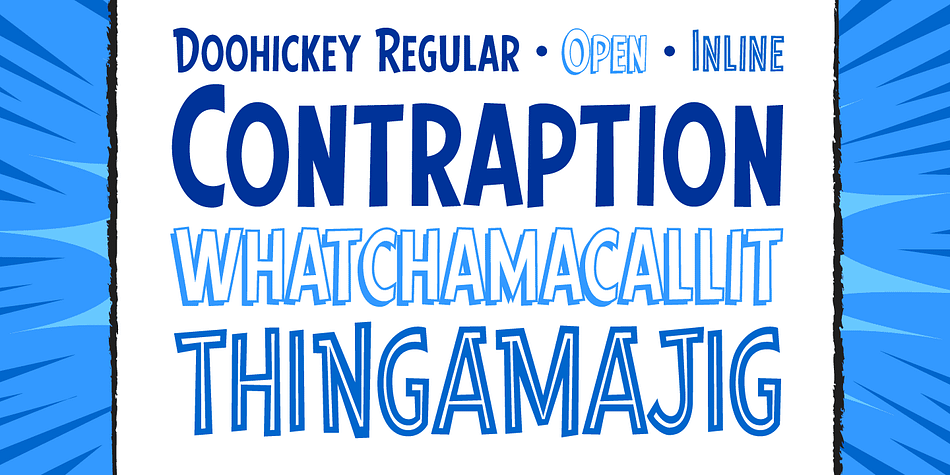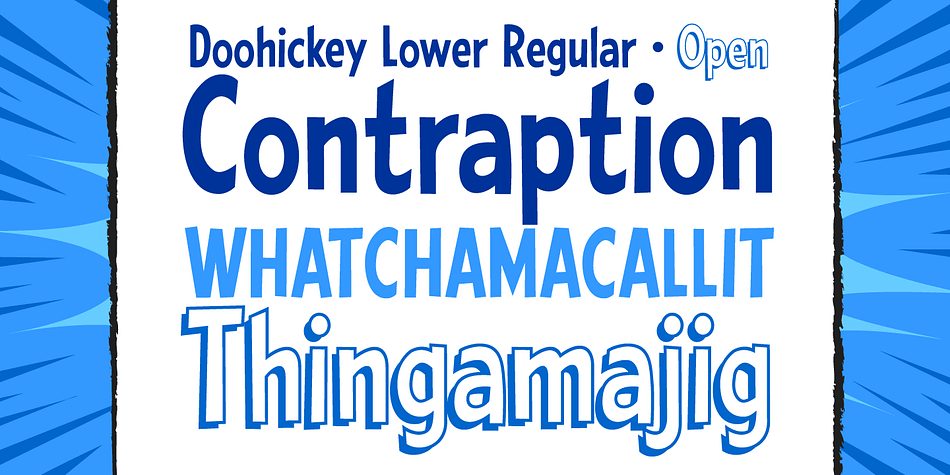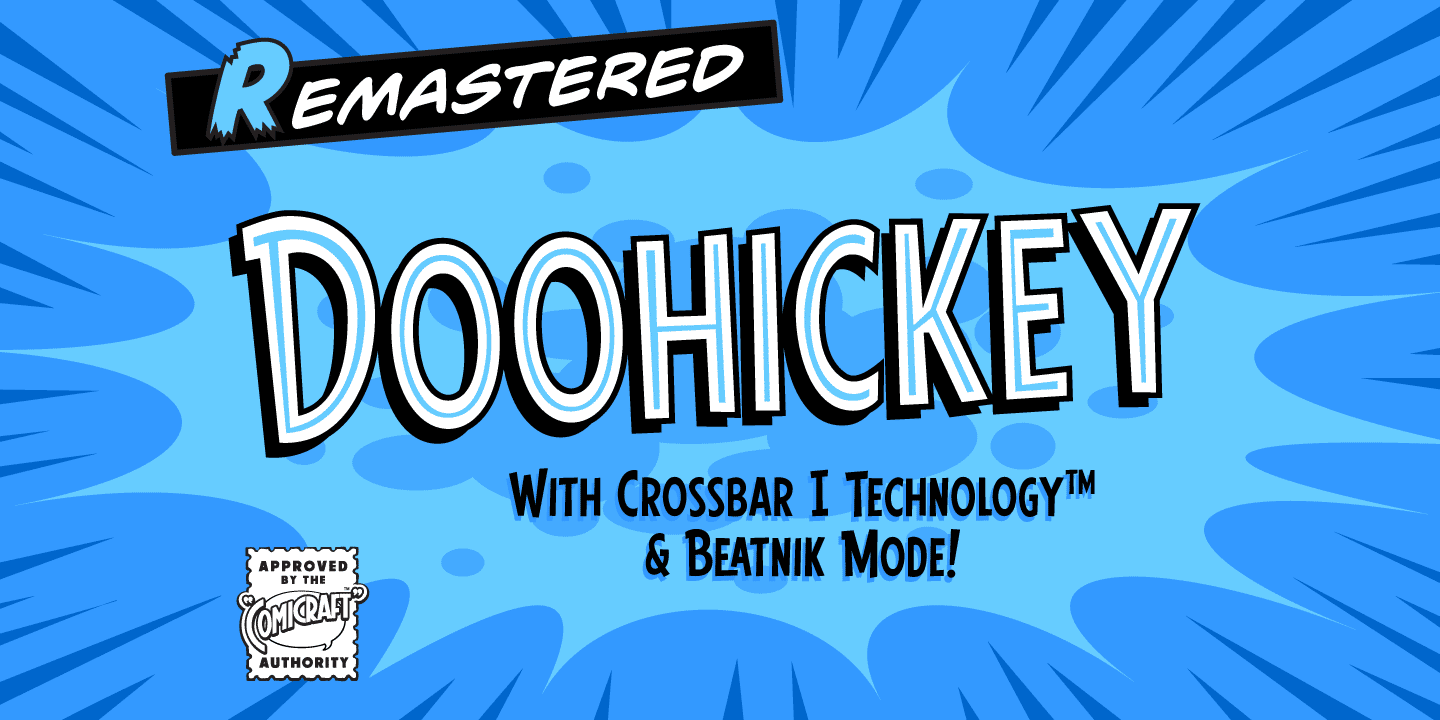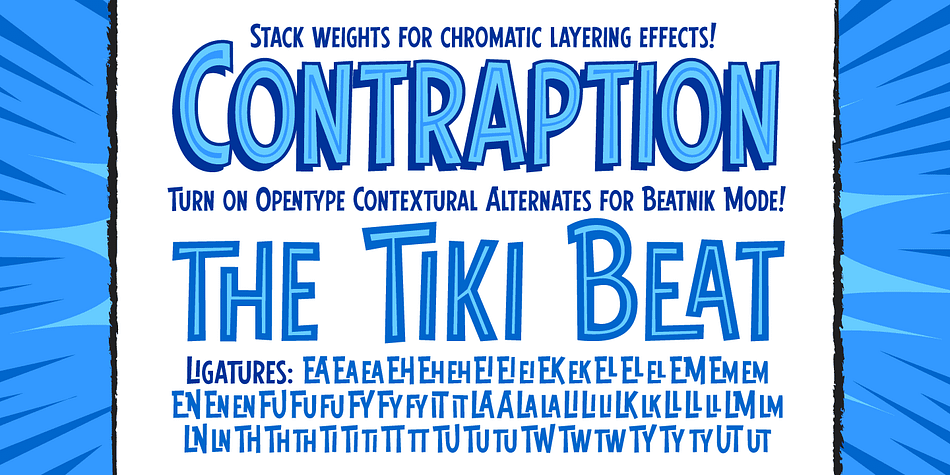
Designed by John Roshell, Doohickey is a comic and display sans font family. This typeface has five styles and was published by Comicraft.
So your widget’s stuck between the framistat and the whatchamacallit, there’s a spanner in the works and your avengers just won’t assemble. Hey, if you want to get any more work done, you know you’re gonna have to hook the hoojamajigger up to the doohickey!